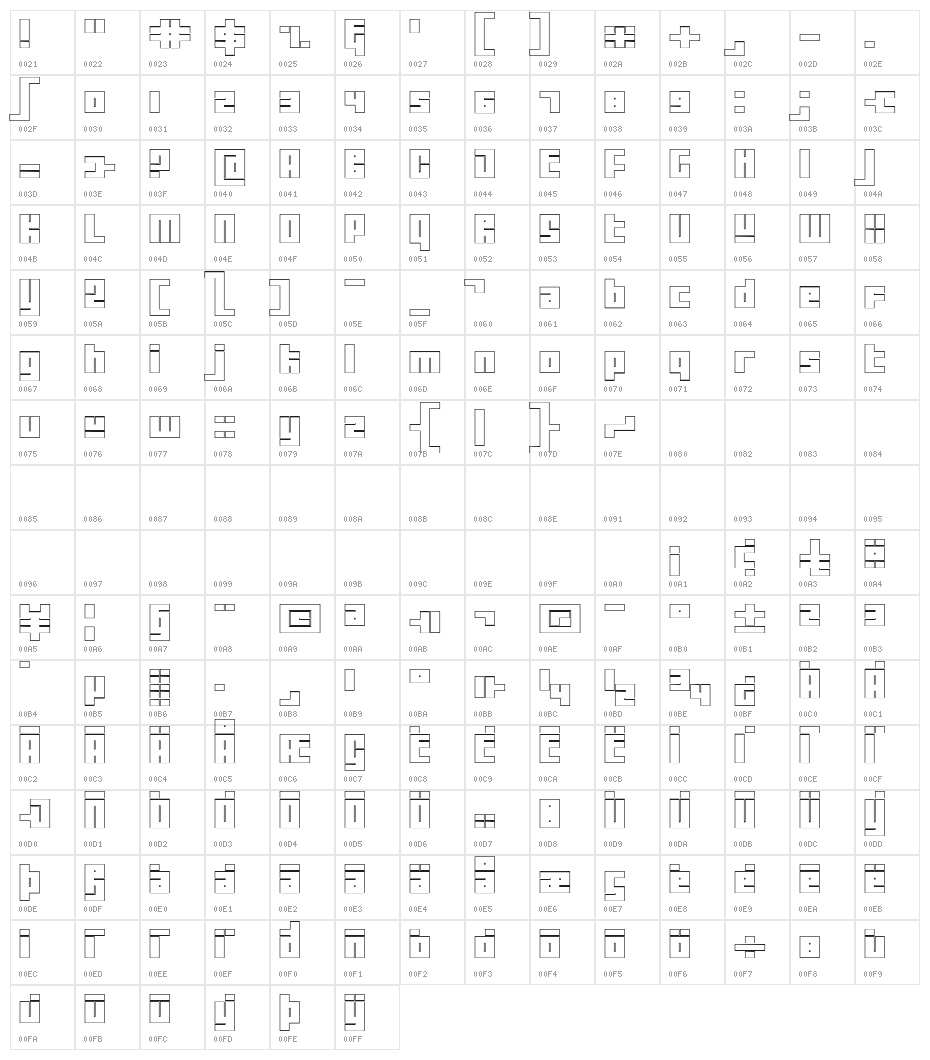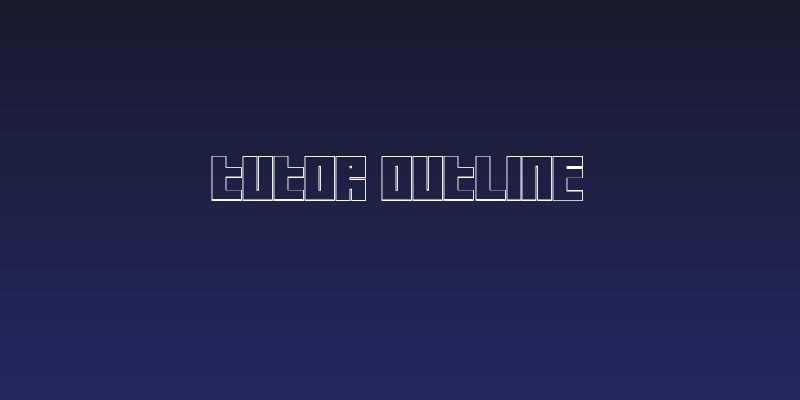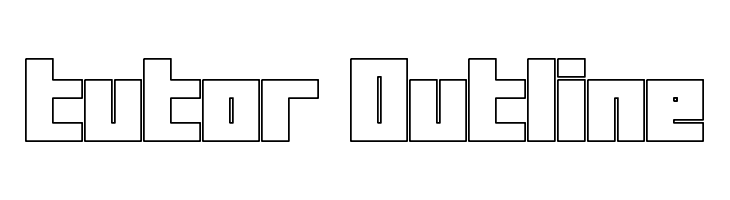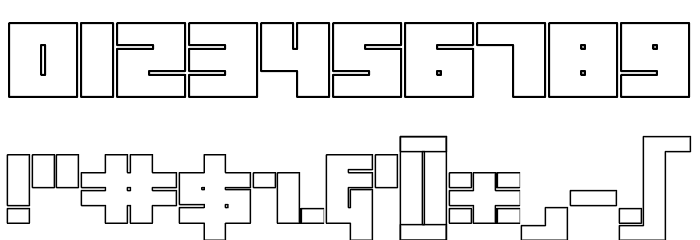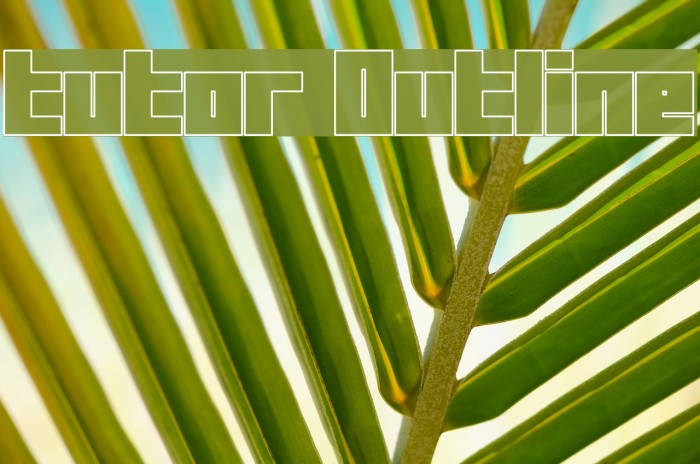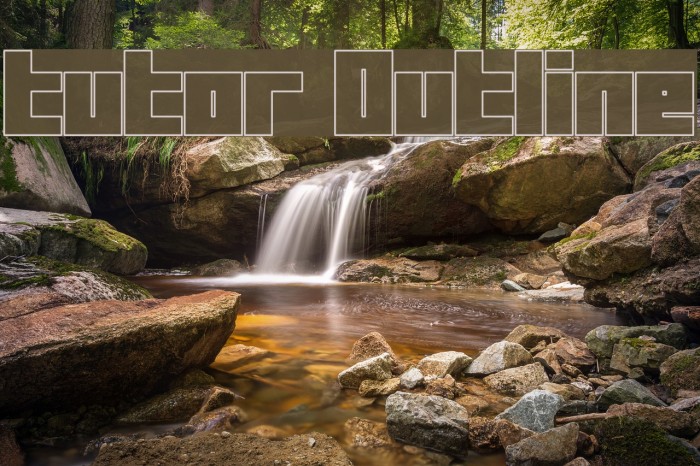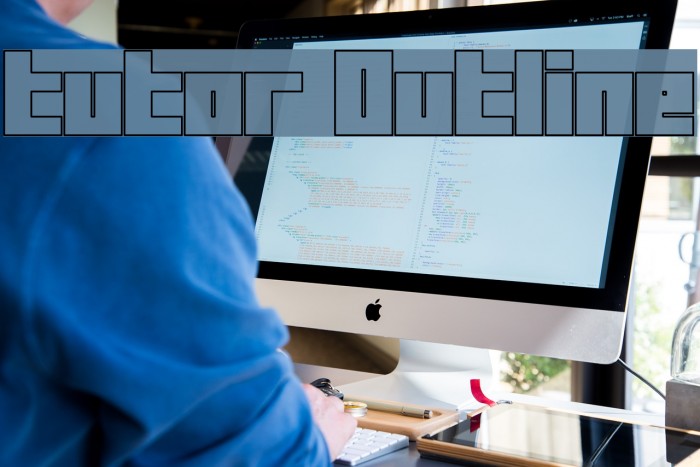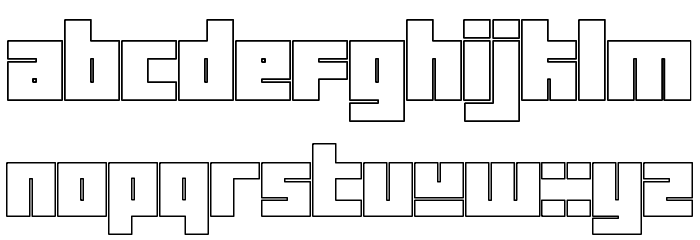
Tutor Outline Font
Tutor Outline Description
This font features a geometric, block-like design with an outline style, giving it a modern and digital appearance. Each character is constructed with straight lines and right angles, creating a uniform and structured look. The uppercase and lowercase letters maintain a consistent height, enhancing the font's cohesive appearance. The numerals and special characters follow the same design principles, ensuring a harmonious overall style. The font's outline nature adds a unique touch, making it stand out in various design contexts.